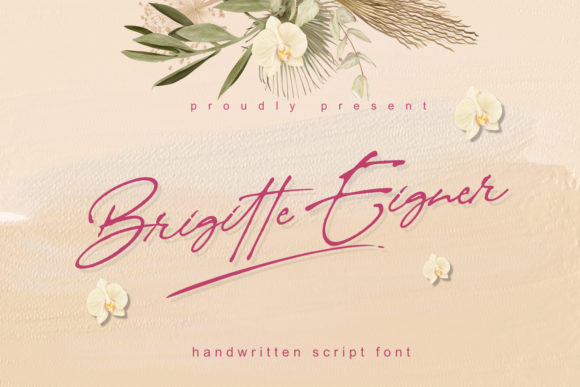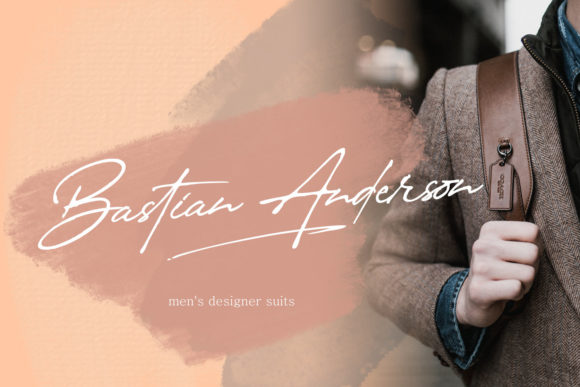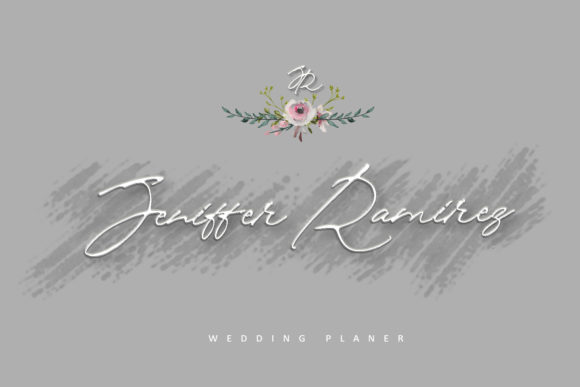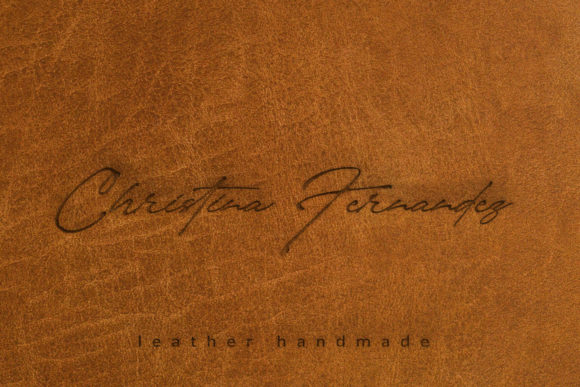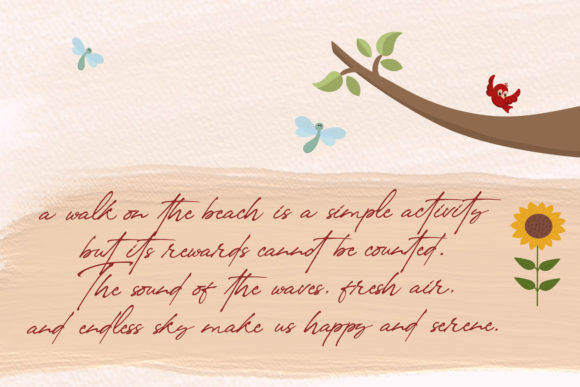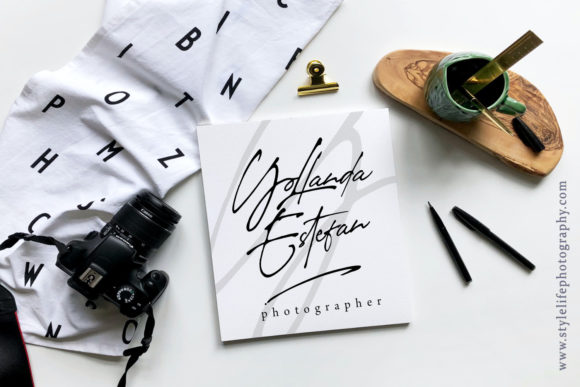
Discover the Charm of Brigitte Eigner Font: A Handwritten Beauty
Are you a designer or crafter looking for a unique and authentic font to elevate your creative projects? Look no further than the Brigitte Eigner font, a stunning handwritten font that exudes a natural feel. In this article, we’ll dive into the world of Brigitte Eigner, exploring its features, uses, and benefits, and why it’s become a favorite among designers and crafters alike.
The Story Behind Brigitte Eigner Font
Brigitte Eigner is a beautifully crafted handwritten font, designed to capture the essence of natural, effortless writing. Its authentic feel makes it perfect for a wide range of creative projects, from wedding invitations and stationery to social media posts and greeting cards. With its unique character and charm, Brigitte Eigner is sure to make your designs stand out from the crowd.
Key Features of Brigitte Eigner Font
• Natural Feel: Brigitte Eigner boasts a beautifully natural feel, making it perfect for designs that require a personal touch.
• Handwritten Style: This font’s handwritten style adds a touch of warmth and personality to any design.
• Authentic Look: With its authentic look and feel, Brigitte Eigner is ideal for creating designs that require a genuine, homemade feel.
• Versatile: Whether you’re designing wedding invitations, social media posts, or greeting cards, Brigitte Eigner is a versatile font that can be used for a wide range of creative projects.
Uses for Brigitte Eigner Font
So, what can you create with Brigitte Eigner font? The possibilities are endless! Here are a few ideas to get you started:
• Wedding Invitations: Create stunning wedding invitations that set the tone for a beautiful and memorable day.
• Stationery: Design gorgeous stationery, including notecards, journals, and letterheads, that showcase your personal style.
• Social Media Posts: Add a touch of personality to your social media posts with Brigitte Eigner’s unique and eye-catching style.
• Greeting Cards: Create cute and personalized greeting cards for special occasions, such as birthdays, holidays, and anniversaries.
Benefits of Using Brigitte Eigner Font
So, why choose Brigitte Eigner font for your creative projects? Here are just a few benefits:
• Unique Style: Brigitte Eigner offers a unique and distinctive style that will set your designs apart from the crowd.
• Easy to Read: This font is easy to read, making it perfect for designs that require a clear and concise message.
• Customizable: With Brigitte Eigner, you can customize your designs to fit your personal style and brand.
Tips for Using Brigitte Eigner Font
To get the most out of Brigitte Eigner font, here are a few tips to keep in mind:
In conclusion, Brigitte Eigner font is a beautiful and versatile handwritten font that offers a natural feel and authentic look. With its unique character and charm, it’s perfect for a wide range of creative projects, from wedding invitations and stationery to social media posts and greeting cards. Whether you’re a designer or crafter, Brigitte Eigner is sure to become a favorite in your creative toolkit.